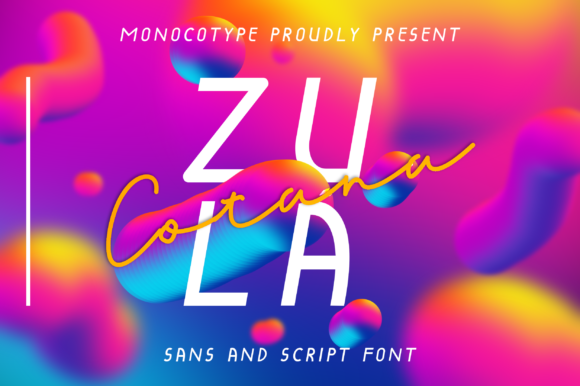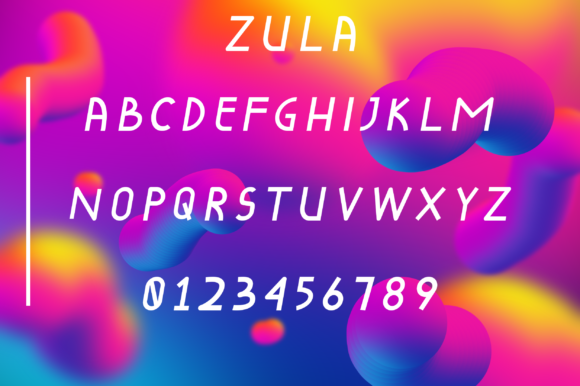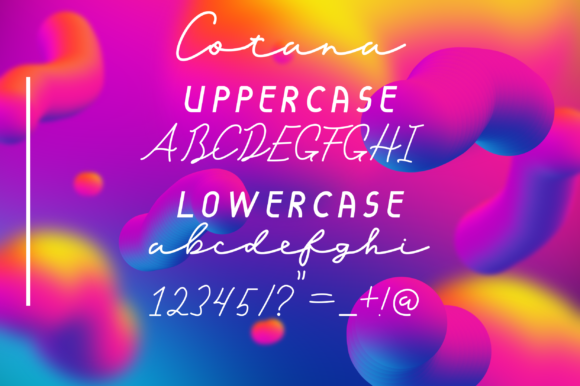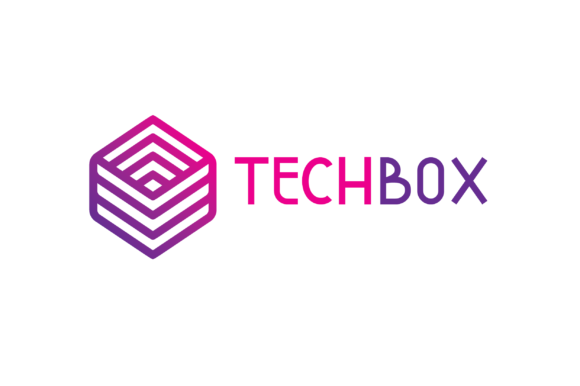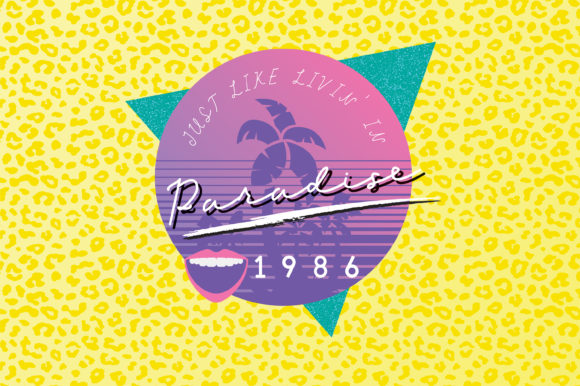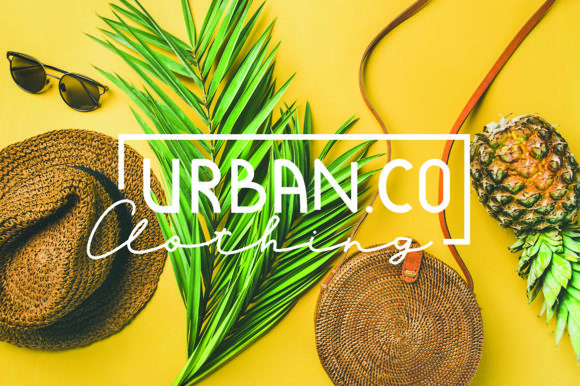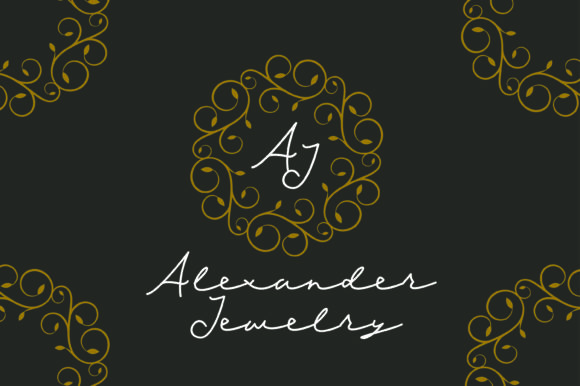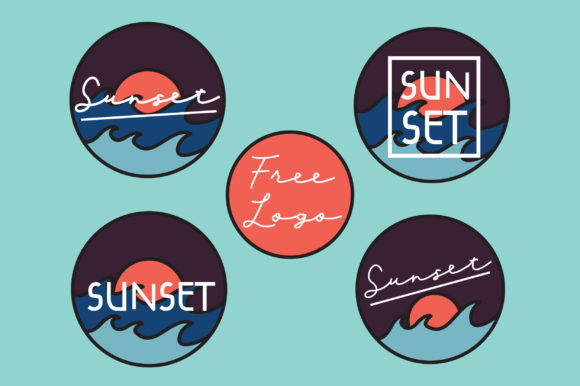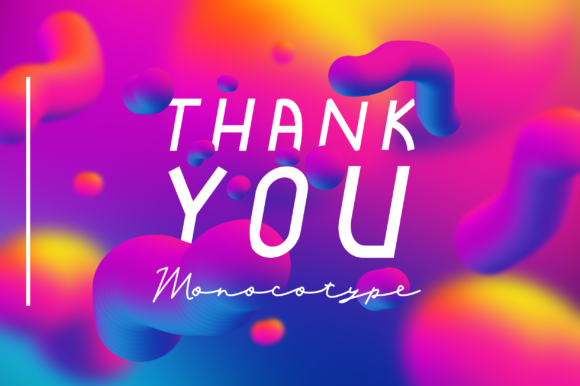
HomeScript FontsZula Cotana Font Script Fonts Zula Cotana Font FacebookXPinterestWhatsApp Zula Cotana Font Poster 2 Zula Cotana Font Poster 3 Zula Cotana Font Poster 4 Zula Cotana Font Poster 5 Zula Cotana Font Poster 6 Zula Cotana Font Poster 7 Zula Cotana Font Poster 8 Zula Cotana Font Poster 9 About Zula Cotana Font Zula Cotana features an incredibly modern and stylish look with a bold feel. DOWNLOAD NOW People also explored Madyna Font Vintage Hands Font Wedding Date Font Captain Brown Font Sophisticated Signature Font Good Selection Duo Font Vogue Font Armita Font Ballerina Font 370 0 TagsZula Cotana Font Previous articleWinsberg FontNext articleGolden Slayer Font LEAVE A REPLY Cancel reply Comment: Please enter your comment! Name:* Please enter your name here Email:* You have entered an incorrect email address! Please enter your email address here Website: Save my name, email, and website in this browser for the next time I comment. Personal Use Free Kids Toys Personal Use Free Read more about this font Catandra Script Personal Use Free Read more about this font Just Love Personal Use Free Read more about this font Angelika Playful Personal Use Free Read more about this font BLOG Best Fonts for YouTube Videos: Make Your Thumbnails Stand Out Best Fonts for YouTube Videos: Make Your Thumbnails Stand Out Choosing the right font can make a massive difference in how your YouTube videos perform.... Exploring Font Trends To increase your work productivity, choose the most readable fonts. Where to Buy American Fonts Online in 2024